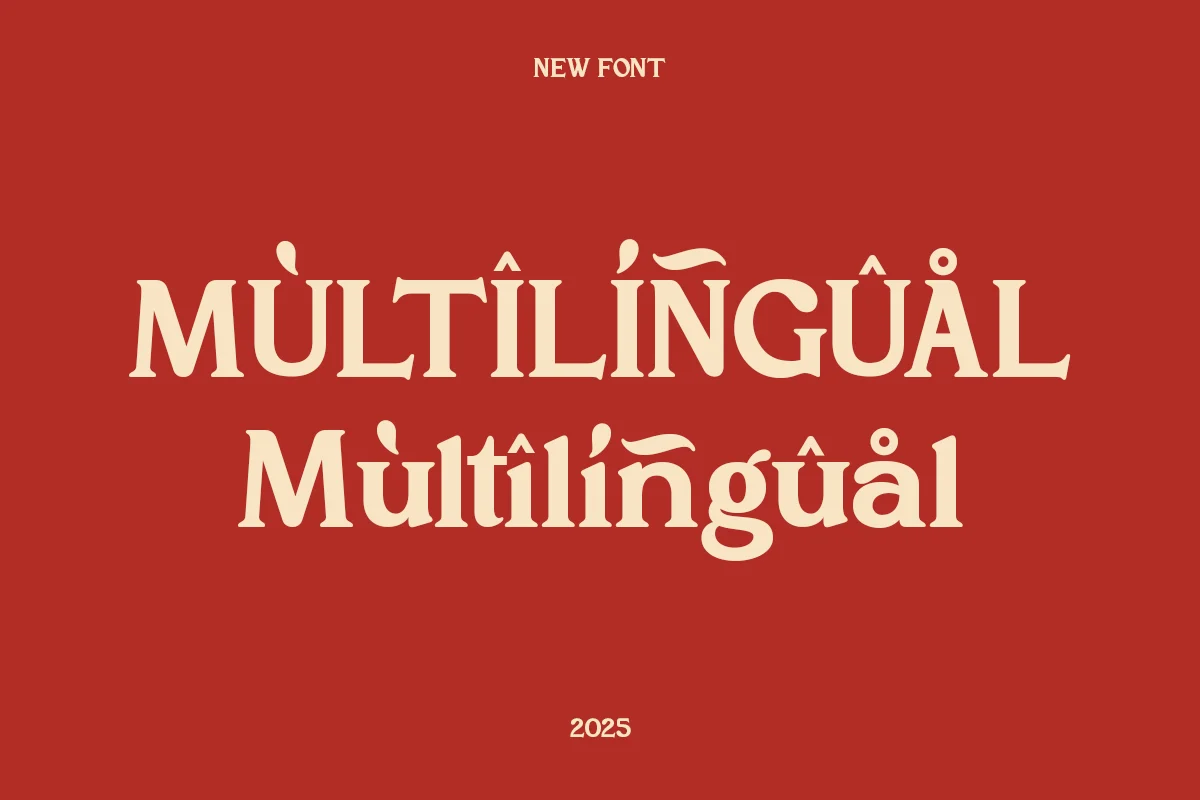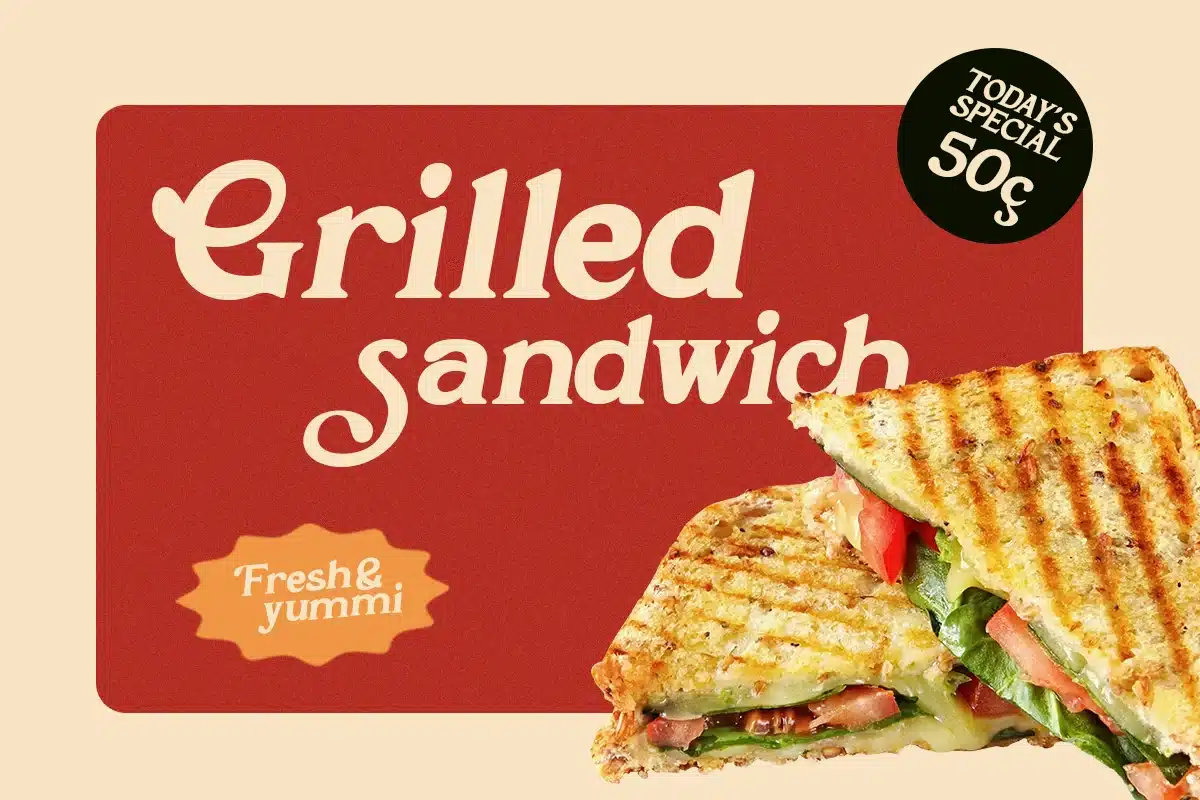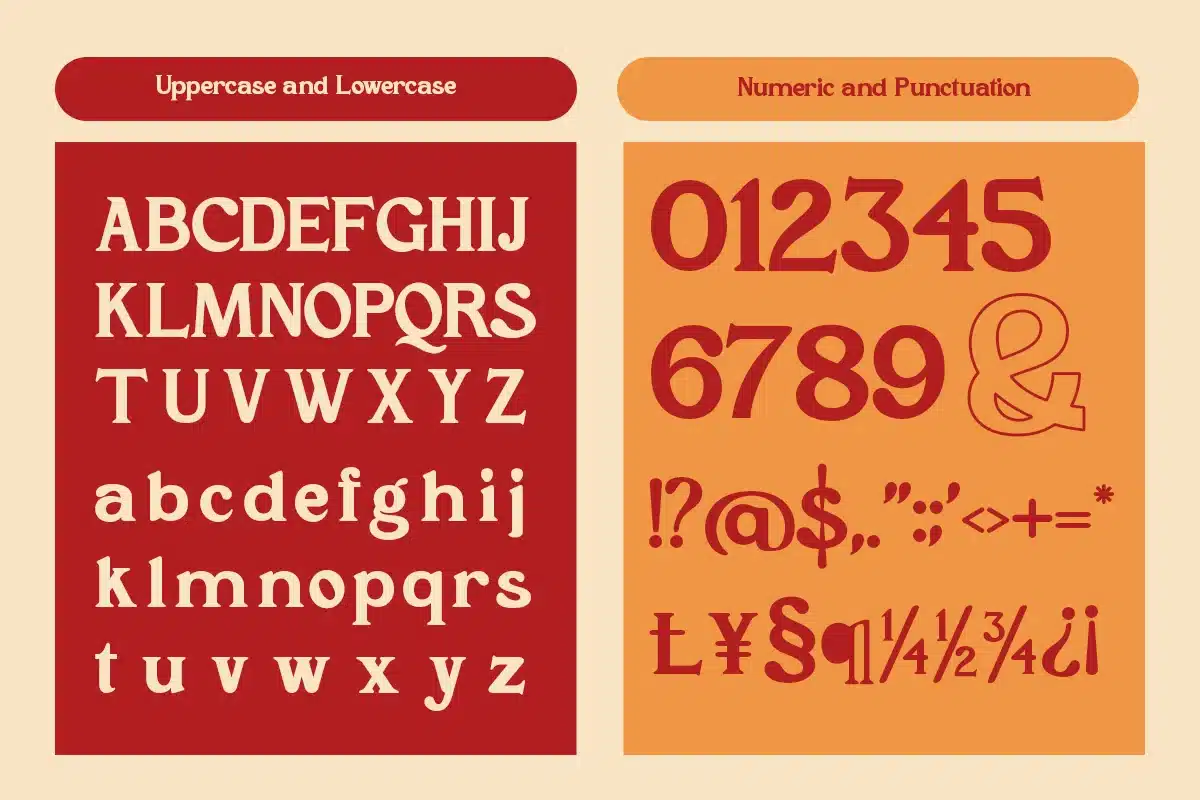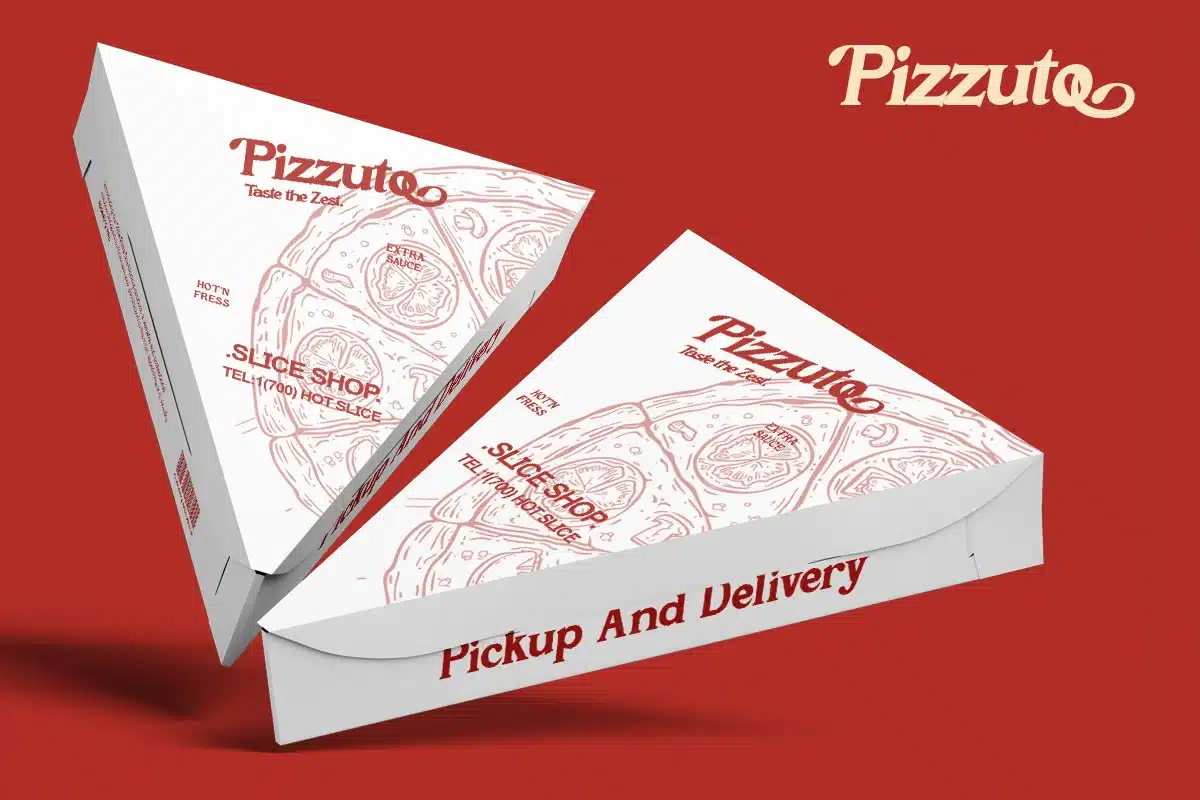
Decorative Modern Serif Food Logo – Keijing Font
Keijing is a decorative modern serif typeface designed with bold personality and playful elegance. Featuring unique curves, expressive terminals, and strong letterforms, it delivers a striking typographic presence.
Perfect for branding, packaging, posters, and creative logos, Keijing blends retro charm with modern display structure. Its distinctive style makes it ideal for designers looking for unique and memorable typography.
Designed to bring bold character into modern branding.
Features
- Uppercase & lowercase
- Regular & Italic
- Alternates & ligatures
- Decorative serif construction
- Bold display contrast
Branding, logo design, packaging, poster design, editorial headlines, creative identity.